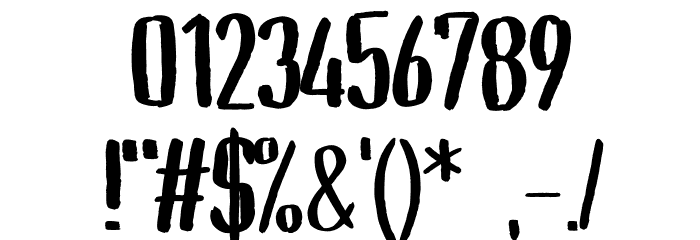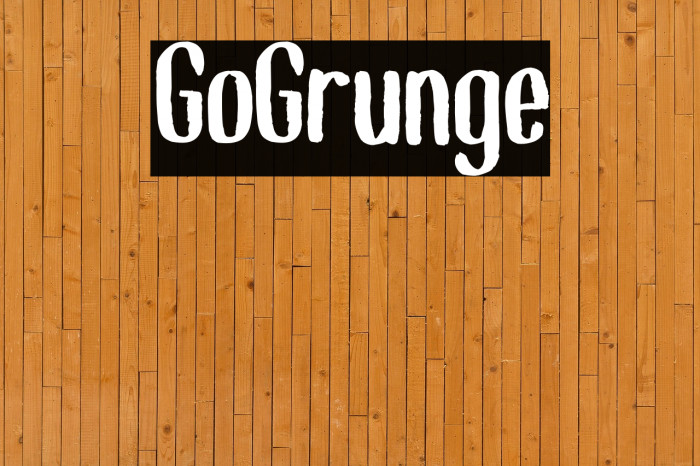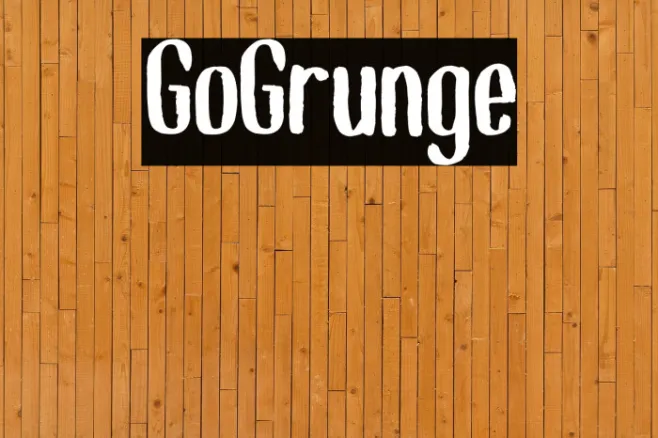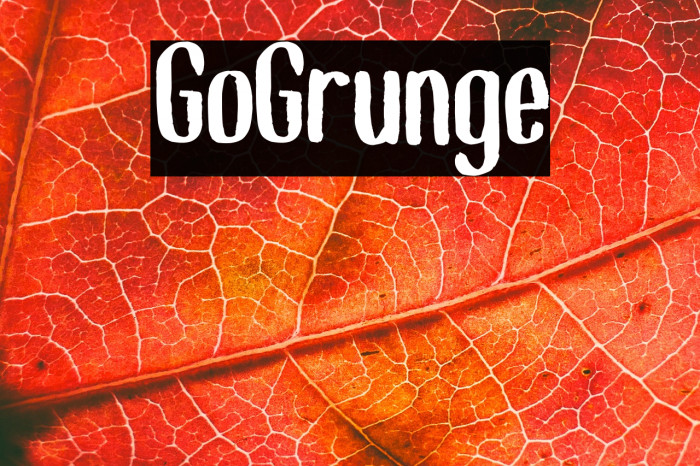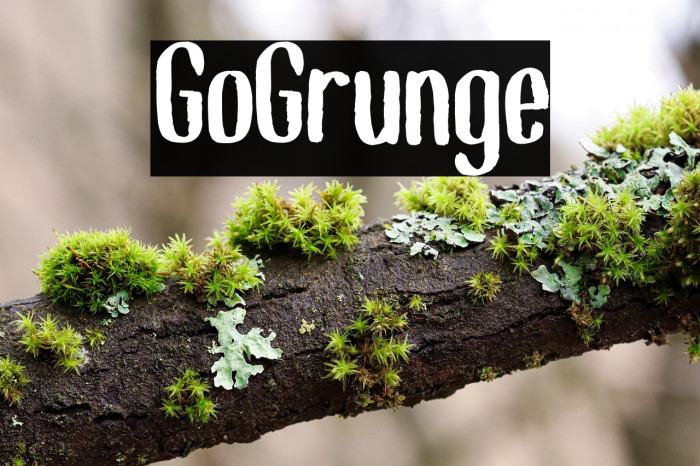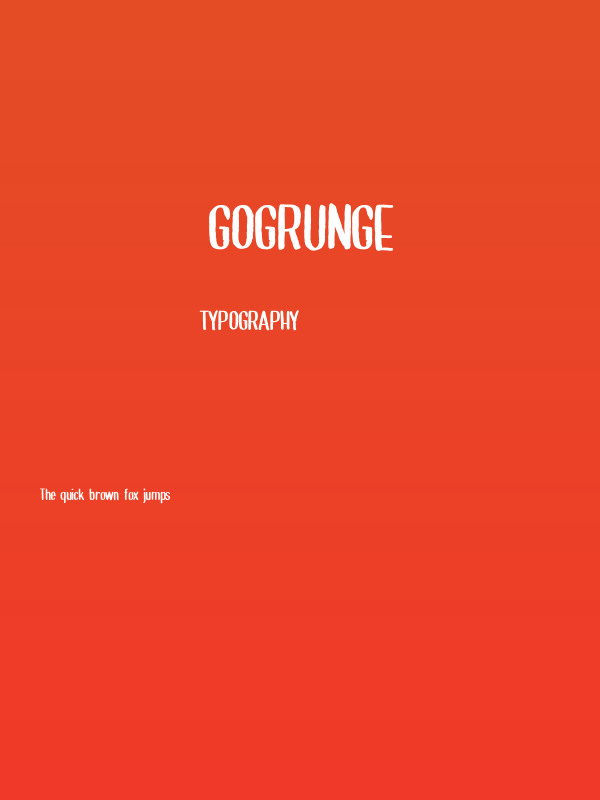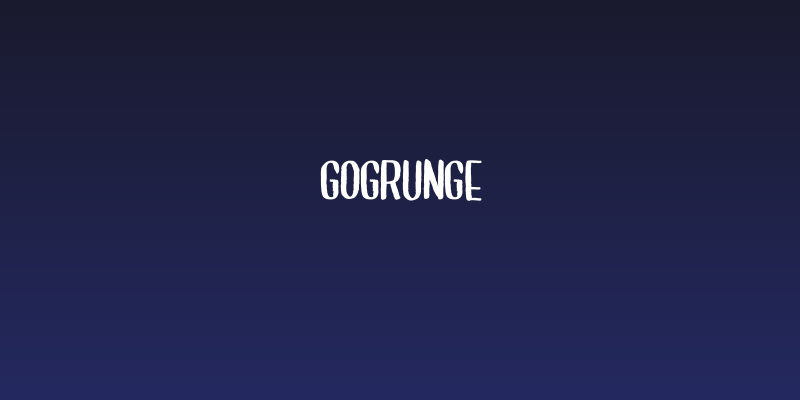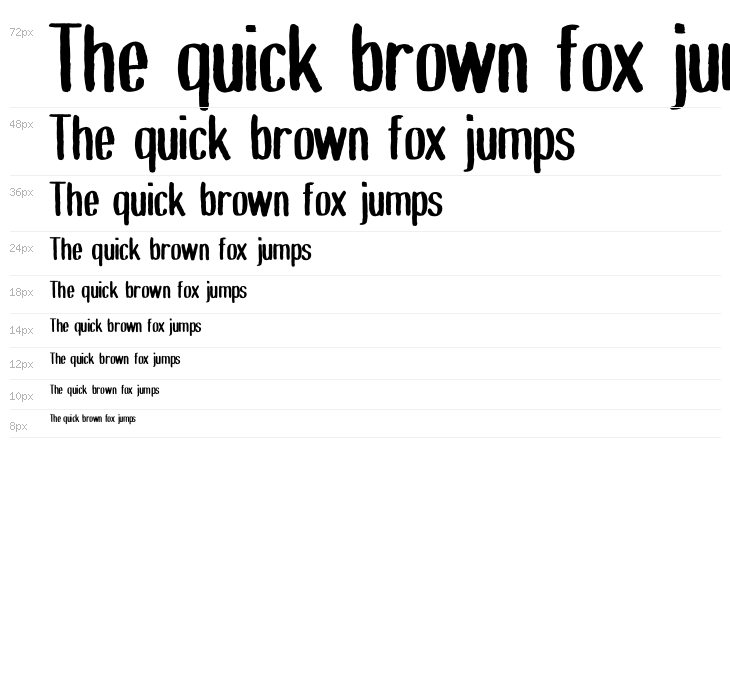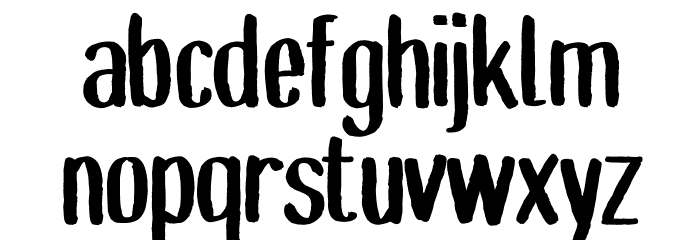
GoGrunge Font
GoGrunge Description
This font features a rugged, hand-drawn appearance with uneven strokes and a distressed texture, giving it a grunge aesthetic. The letters are bold and slightly irregular, adding a sense of dynamism and energy. The uppercase and lowercase letters maintain a consistent style, with rounded edges and varying line thicknesses that enhance its raw, organic feel. Numbers and special characters follow the same design principles, ensuring a cohesive look across all elements. This font is ideal for projects that require a bold, edgy, and artistic touch.
Overall StyleGrunge, Artistic
Proposed ProjectsAlbum covers, posters, streetwear branding, and artistic event flyers.